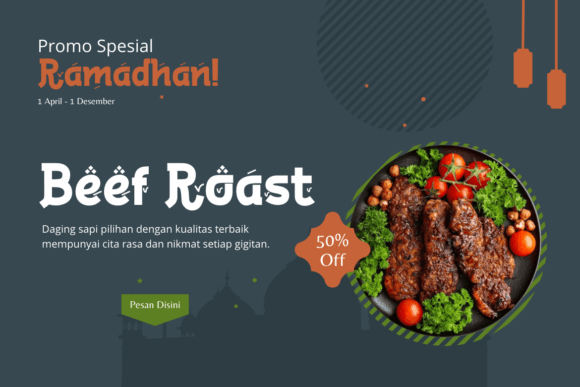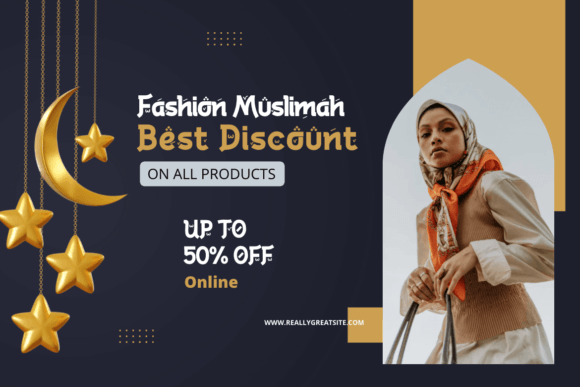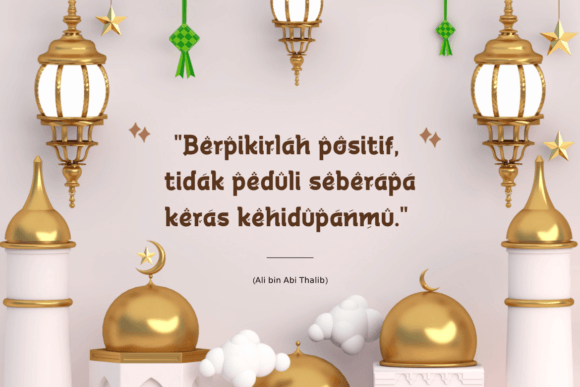
Introduction to Noytur Font
As a designer, have you ever been stuck in front of a blank canvas, struggling to find the perfect font to bring your creative project to life? I know I have. It’s that moment of frustration when you’re about to give up, but then you stumble upon a hidden gem – a font that perfectly captures the essence of your design.
Enter the Noytur Font, a game-changing design resource that’s about to revolutionize the way you approach typography. This high-quality font combines the intricate beauty of Arabic symbols with the clean lines of a sans-serif font, resulting in a unique and captivating design element.
With its exceptional readability and versatility, the Noytur Font is an invaluable asset for designers of all levels, offering a wide range of applications from branding and poster art to religious events and more.
Key Features of Noytur Font
- High-quality font design suitable for creative projects and various design resources.
- Features a transparent background, allowing for seamless integration into designs.
- Designed with a unique aesthetic, making it ideal for projects that require a distinctive look.
- Includes a range of characters and glyphs, including international characters and symbols.
Honest Review: Noytur Font
I recently stumbled upon the Noytur Font and I must say, it’s been a game-changer for my creative projects. As a designer, I’m always on the lookout for high-quality design resources that can elevate my work and make it stand out.
What works well for me about the Noytur Font is its versatility. It’s perfect for creating eye-catching headlines, and its transparent background makes it easy to layer over other design elements. The font’s sleek and modern design also makes it an excellent choice for a wide range of creative projects.
Here are some of my favorite features of the Noytur Font:
However, I do have to mention that the Noytur Font may not be suitable for all types of projects. For example, it may not be the best choice for projects that require a more traditional or classic look.
Overall, I’m thoroughly impressed with the Noytur Font and I would definitely recommend it to fellow designers. Its high-quality design and versatility make it an excellent addition to any design resource library.
Tips for Getting the Most Out of Noytur Font
To get the most out of the Noytur Font, experiment with different font sizes, colors, and combinations. You can also use it in conjunction with other design elements to create a unique and eye-catching design.
Noytur Font is ideal for a wide range of creative projects, including social media graphics, presentations, posters, and brochures. It’s also great for creating a consistent brand identity across multiple platforms.
Can I customize the Noytur Font to fit my design needs?
Yes, the Noytur Font is fully editable, allowing you to customize it to fit your specific design needs. You can adjust the font size, color, and style to match your project’s requirements. Additionally, the font’s transparent background makes it easy to layer and combine with other design elements.